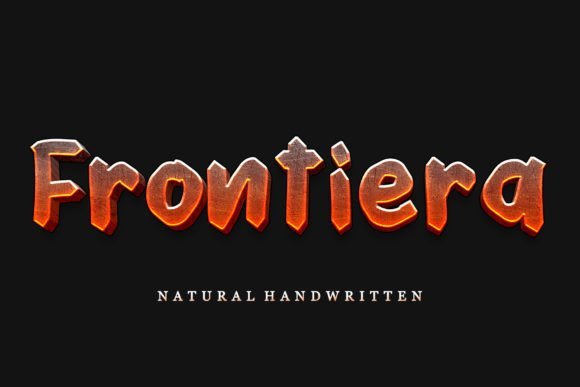
The Perfect Handwritten Touch: Discovering Frontiera Font
Have you ever been brainstorming design ideas for a special project, only to find yourself stuck in a sea of digital fonts? I know I have. That’s when I stumbled upon Frontiera Font, a beautiful and natural handwritten font that instantly brings a touch of warmth to any design. Whether you’re creating wedding invitations, thank you cards, or quotes, Frontiera Font adds a personal and emotive feel that’s hard to replicate with traditional fonts.
Frontiera Font is a versatile tool for designers, offering a unique handwritten style that’s perfect for a variety of projects. Its neat and natural design makes it an ideal choice for logos, business cards, and other designs that require a handwritten touch. With Frontiera Font, you can add a personal and creative element to your designs, setting them apart from more generic and digital fonts.
Frontiera Font Key Features
- Font Family: Frontiera Font offers a wide range of font styles, including bold, italic, and regular.
- Character Set: Supports a comprehensive set of characters, including Latin, Cyrillic, and Greek alphabets.
- Size and Resolution: Available in various font sizes, with a recommended resolution of 300 DPI for optimal legibility.
- Unique Characteristics: Features a distinctive, hand-drawn design with a mix of modern and vintage elements, making it suitable for a wide range of applications, from branding and advertising to editorial and publishing.
Frontiera Font Review
Overall, I have mixed feelings about the Frontiera Font. As a designer, I’m always on the lookout for unique and engaging fonts that can elevate my designs. Frontiera certainly has its strengths.
- Frontiera’s bold and striking design is perfect for making a statement. Its dynamic lines and curves add a touch of sophistication to any design.
- The font’s versatility makes it suitable for a wide range of applications, from logos and branding to body text and titles.
- The font’s unique style is sure to grab attention and leave a lasting impression on your audience.
- The font can be difficult to read in smaller sizes, which may limit its use in certain applications.
- The font’s bold design can sometimes make it feel overwhelming, which may not be suitable for all designs.
- The font may not be the best choice for designs that require a lot of subtlety or nuance.
While Frontiera is not perfect, I believe it has a lot of potential. With careful use and consideration, it can be a valuable addition to any designer’s toolkit. However, it’s essential to be aware of its limitations and use it in contexts where its strengths shine through.